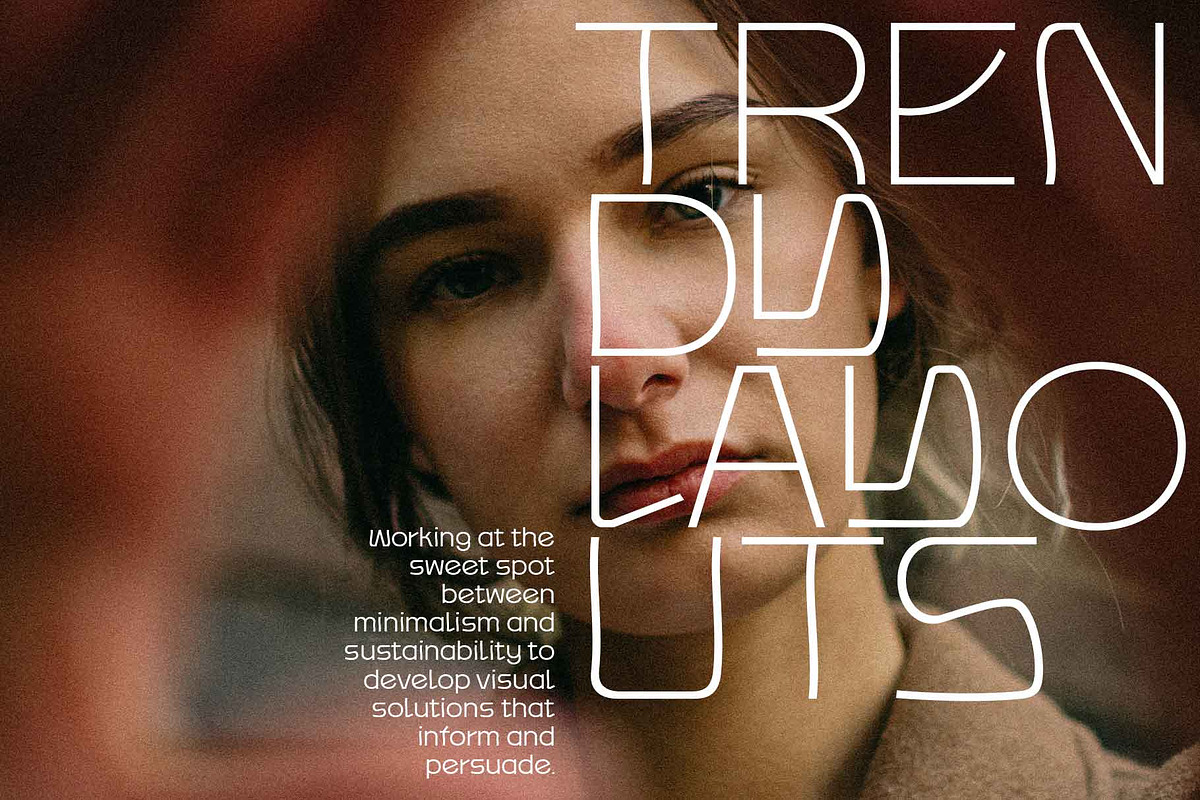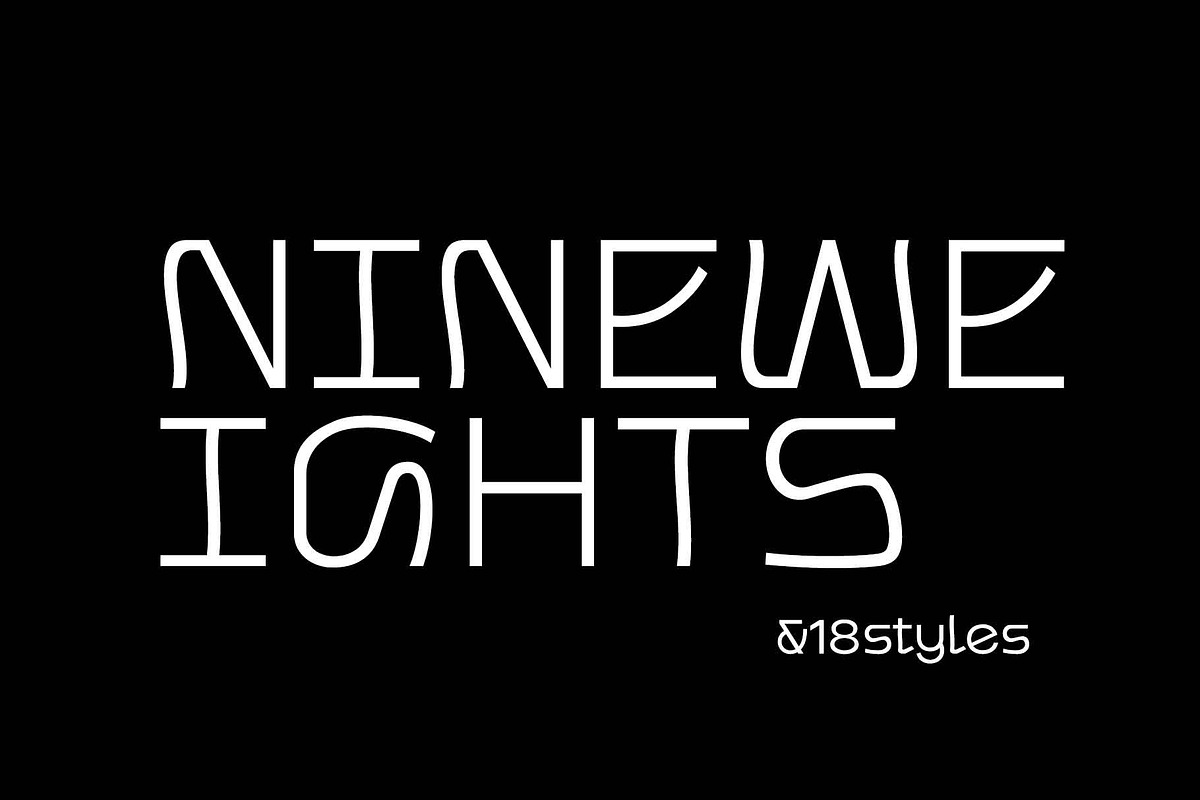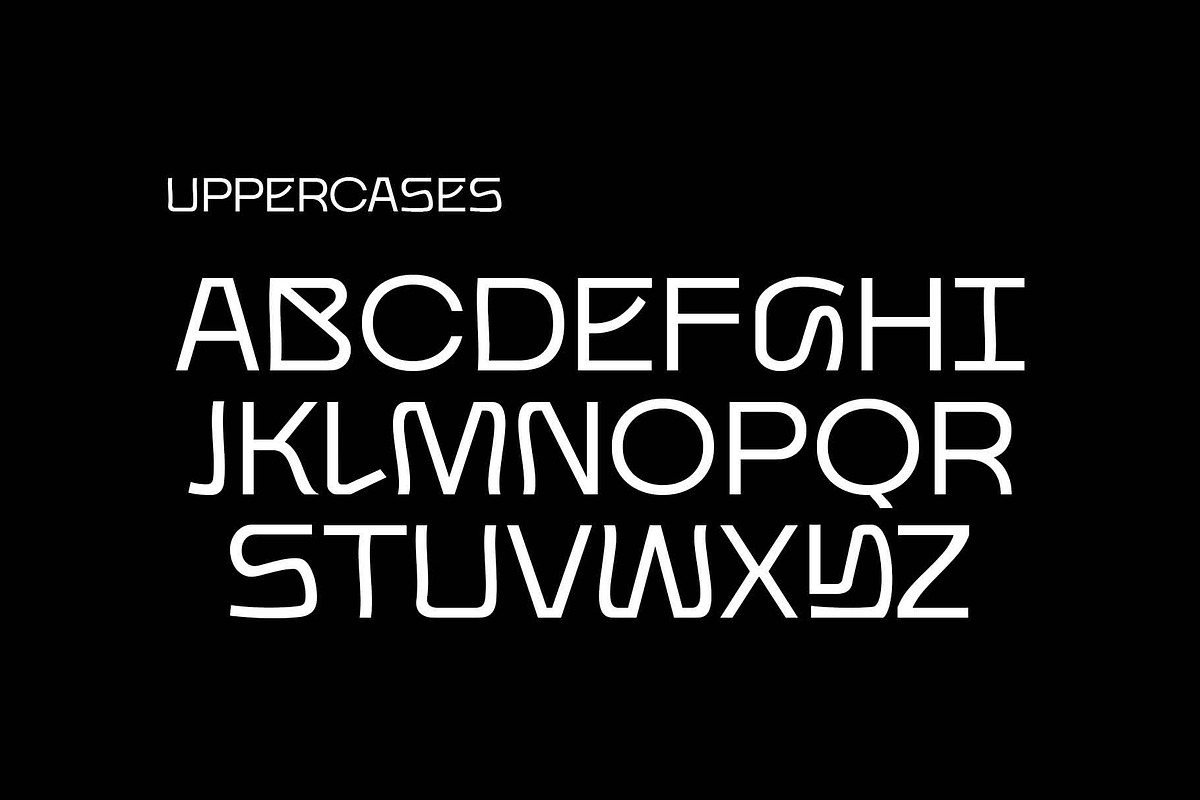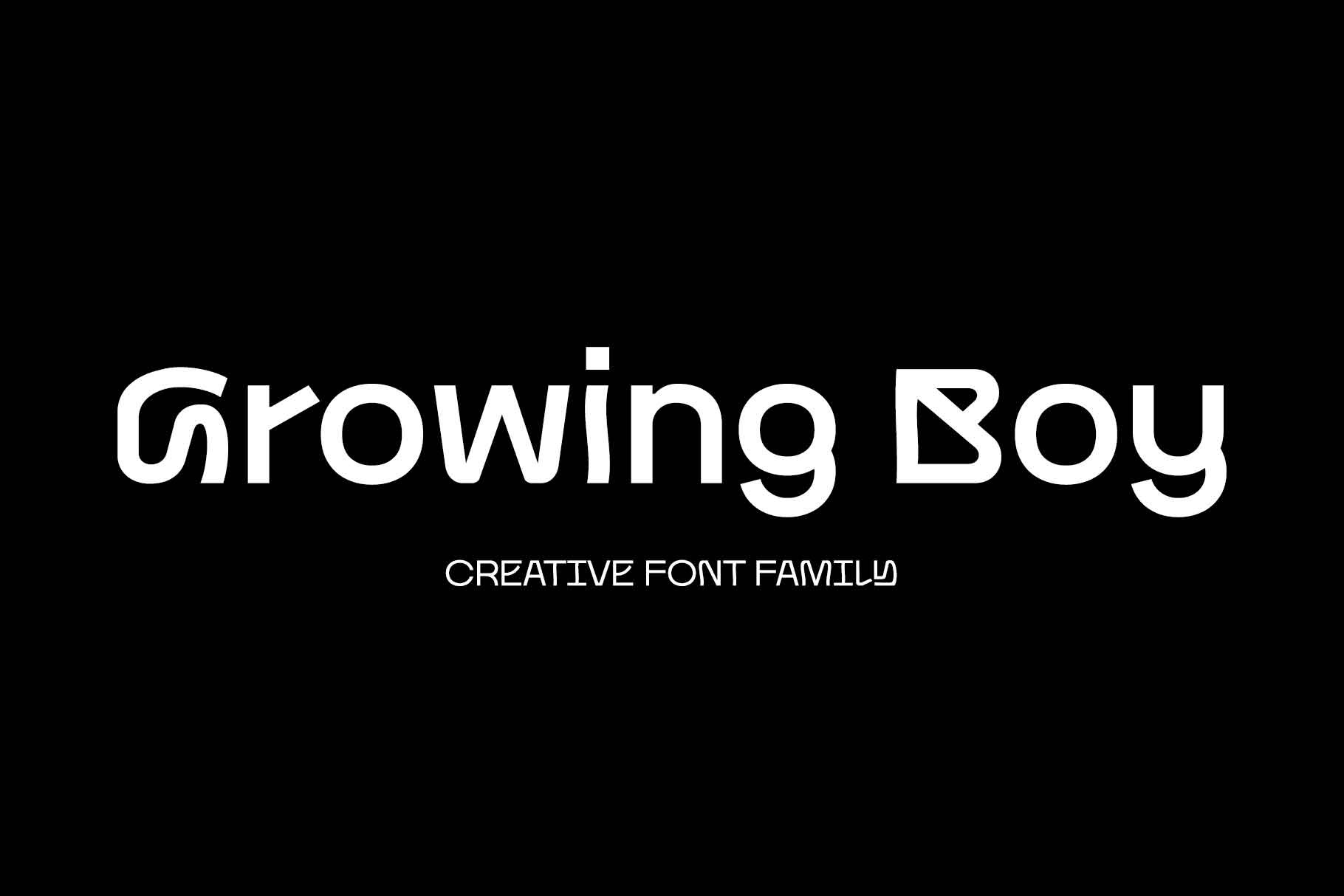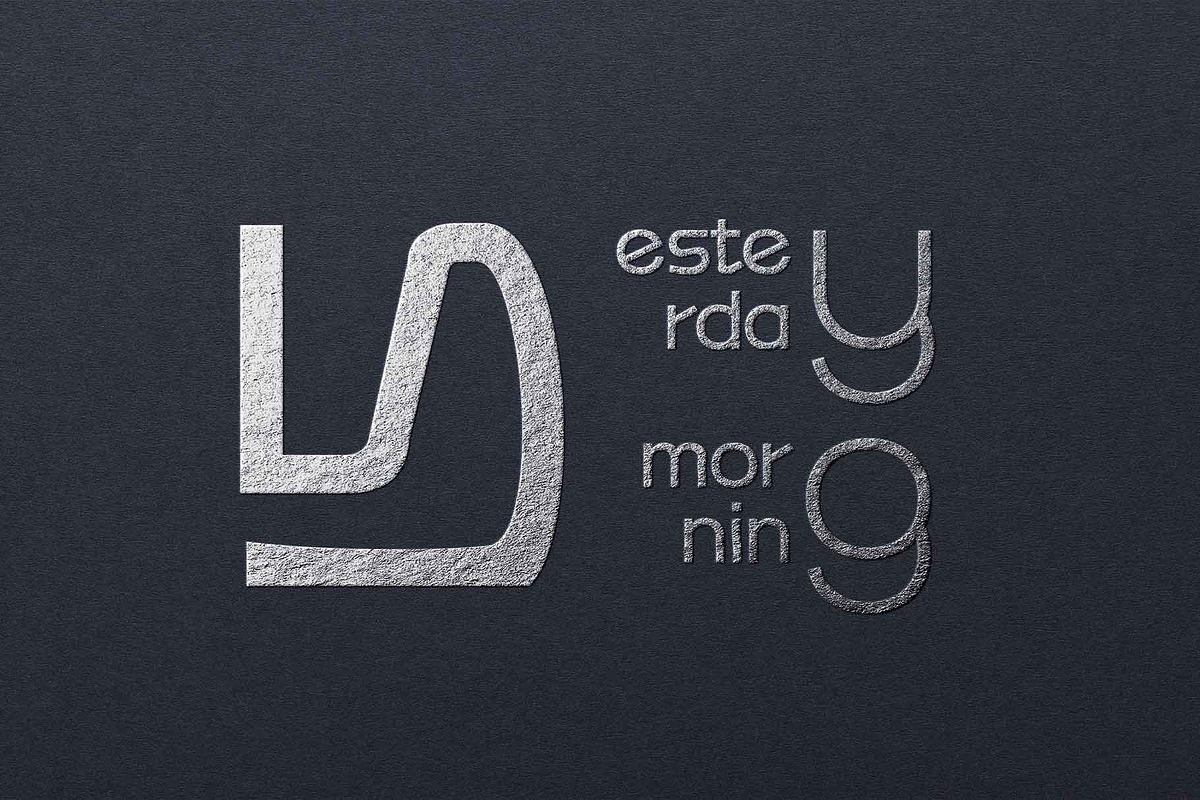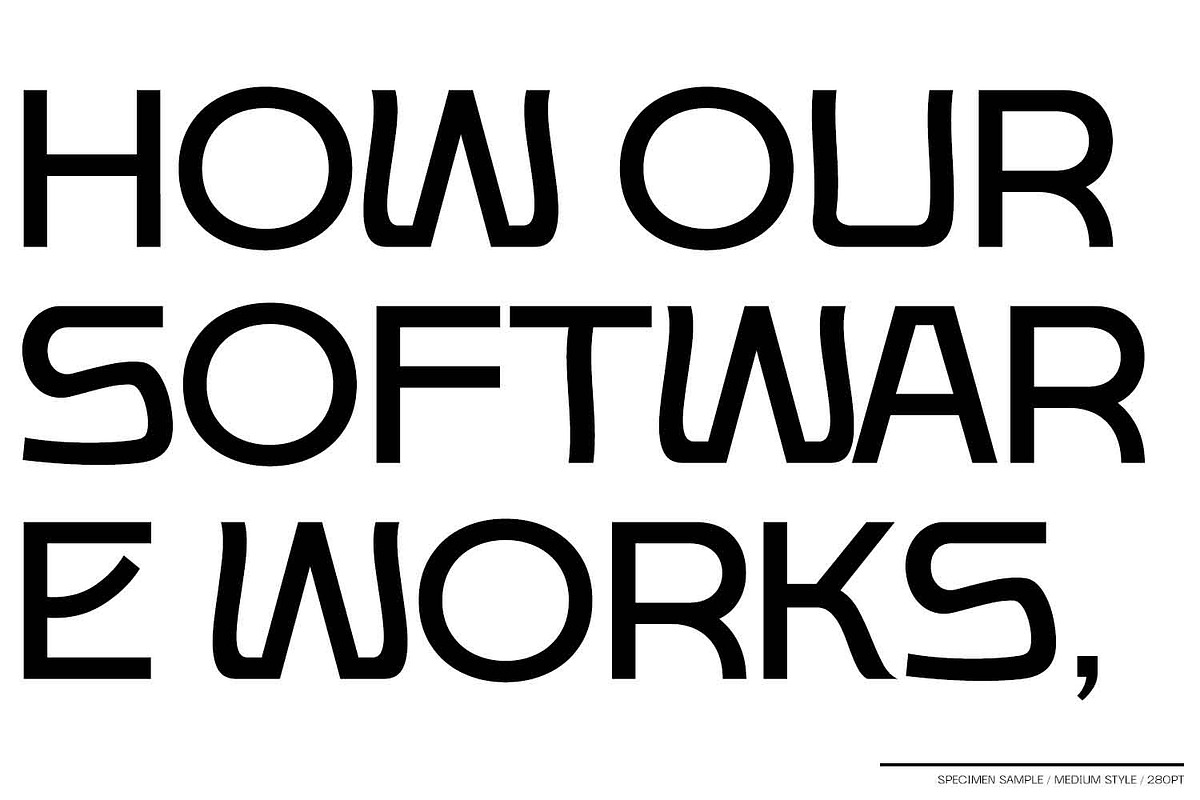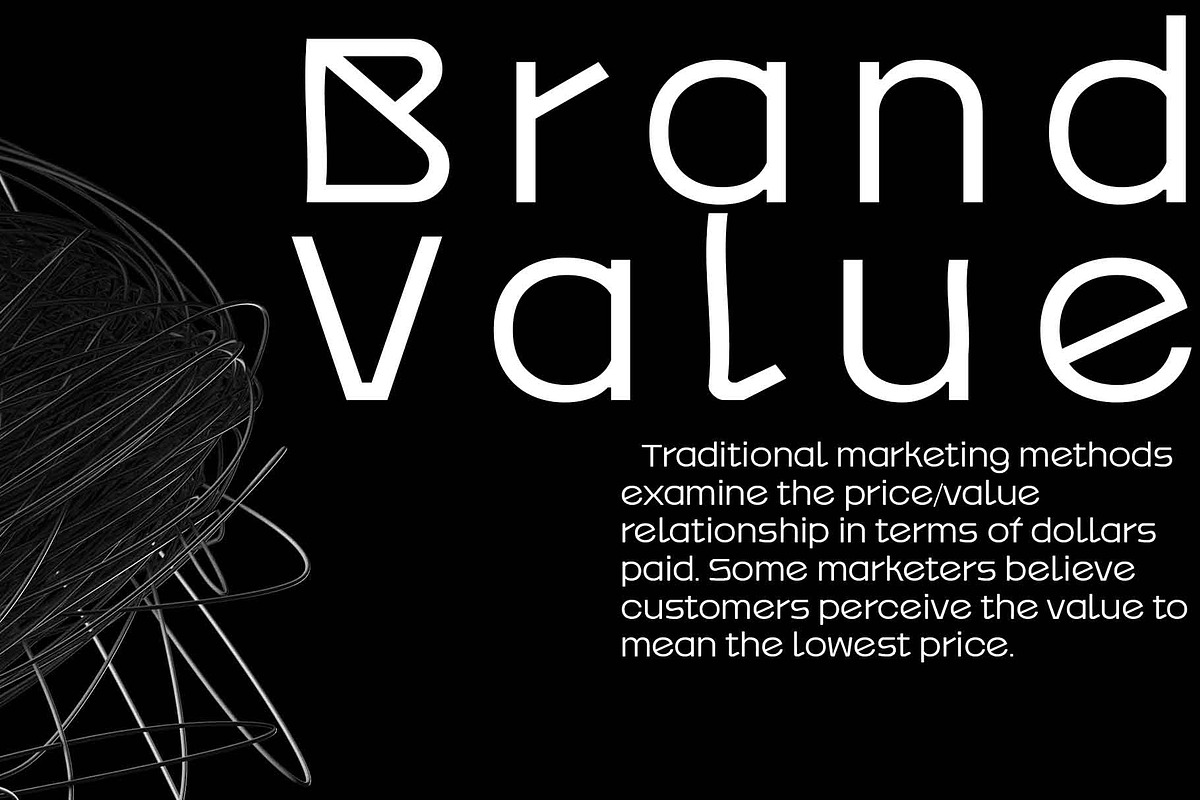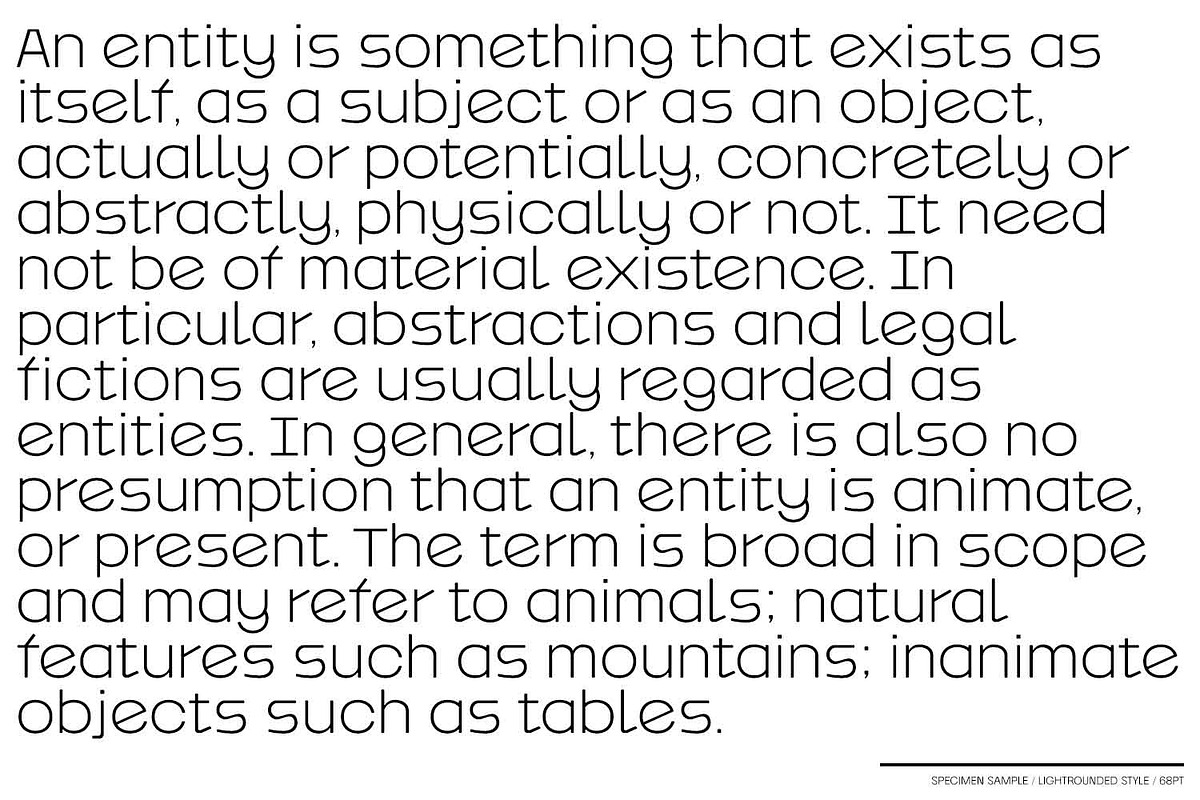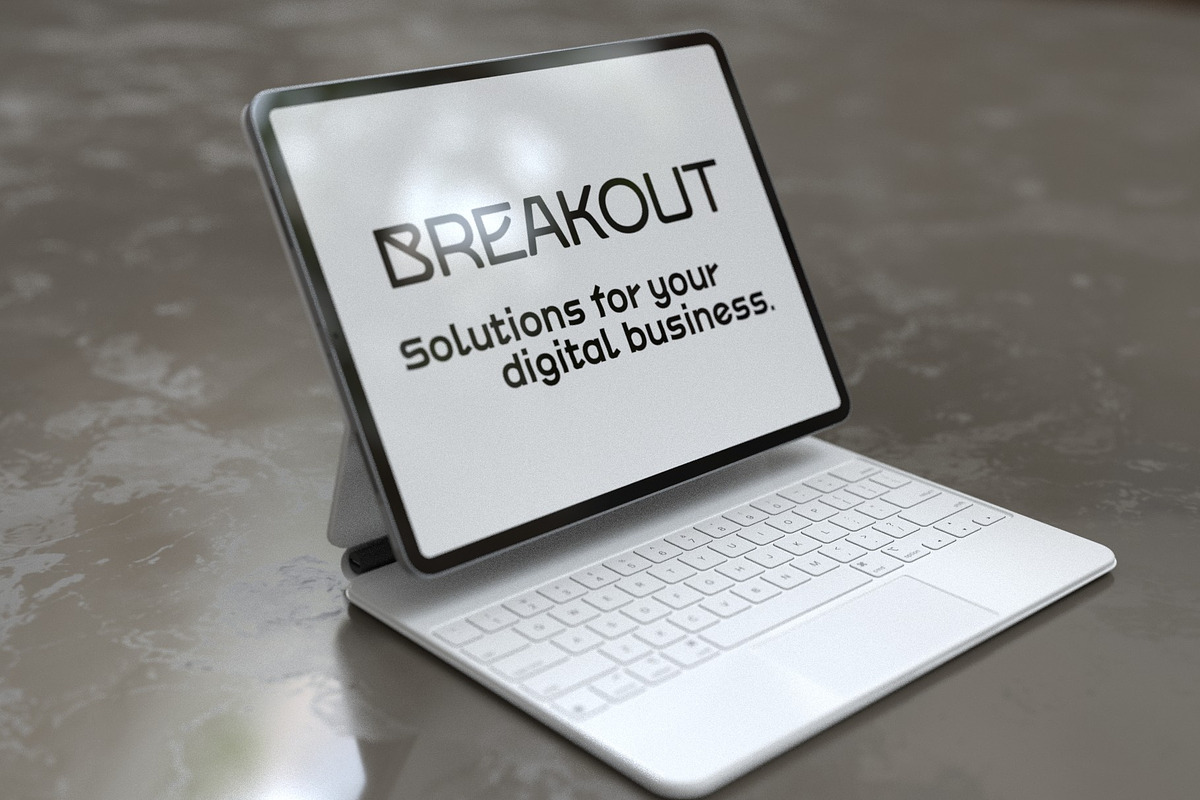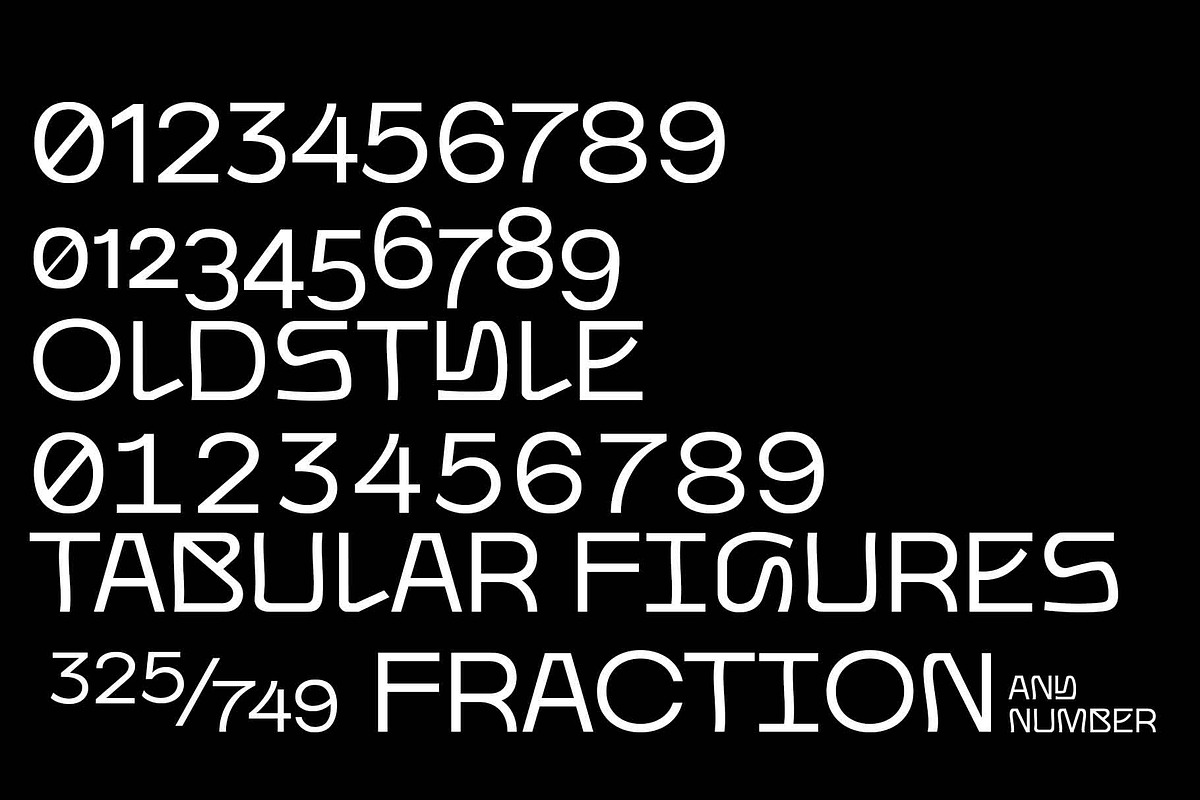
Growing Boy Font Family
Growing Boy Font Family is designed with rather high x-height and consists of cute and creative glyphs. Nine weights include regular and rounded styles, the rounded styles are designed for soft edge. The really uniquely drawn glyphs can work well with any composition to create the layout you want. In addition, rounded styles increase readability and simplicity, so they can be applied in a variety of ways, including editorial publishing, logo design, brand identity, and on-screen channels..